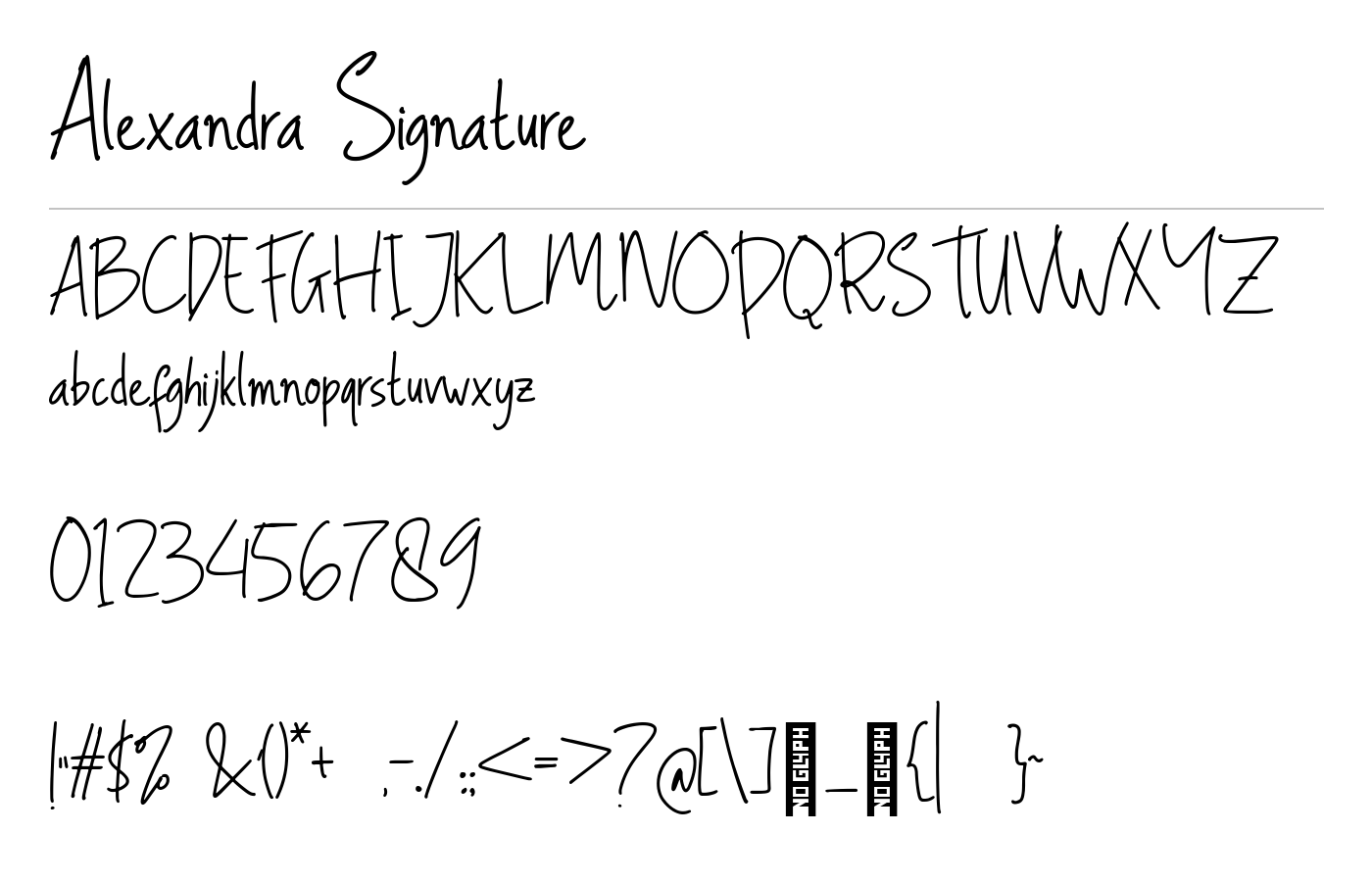
Alexandra Signature is a casual, handwritten sans serif font that features slender, tall letterforms with a natural, fluid style reminiscent of personal handwriting. Its light weight and slightly uneven strokes give it an approachable, friendly feel, making it well suited for branding, invitations, and creative projects that require a personal touch. This font works best in headlines, logos, and designs where a subtle, elegant hand-crafted vibe is desired.
Alexandra Signature Font
About Alexandra Signature Font